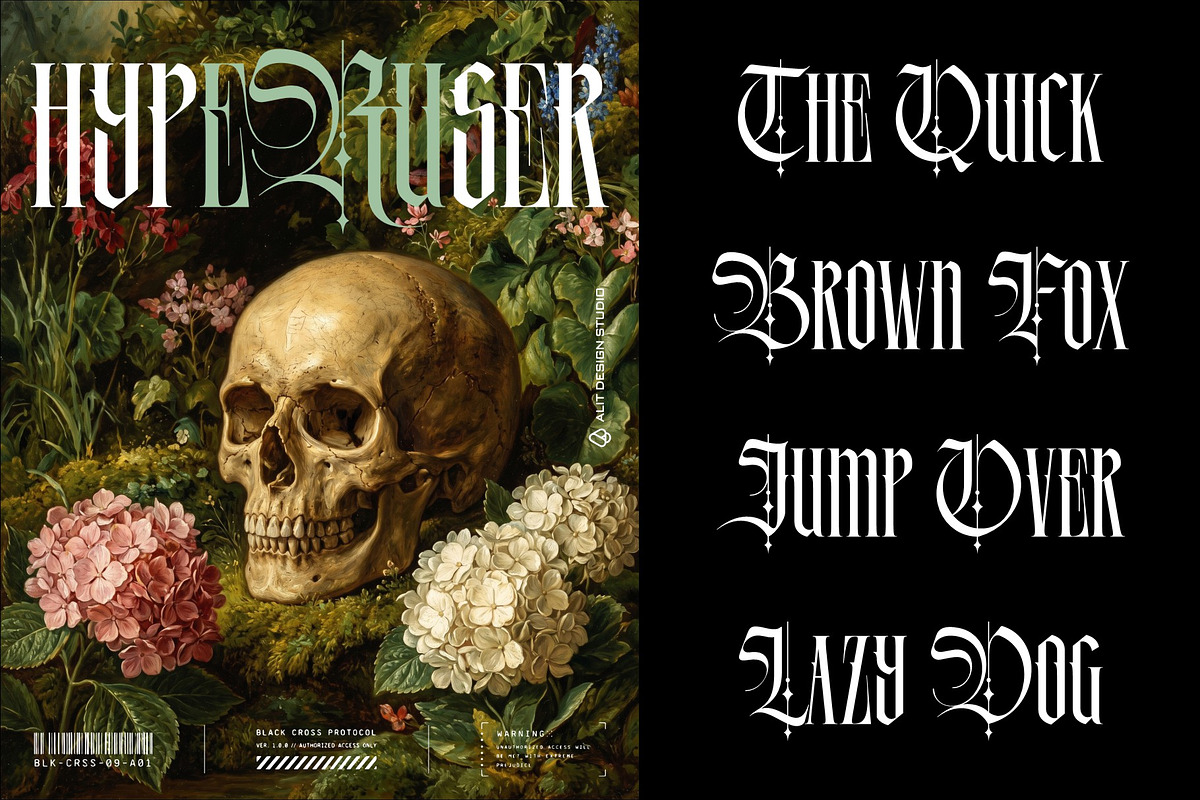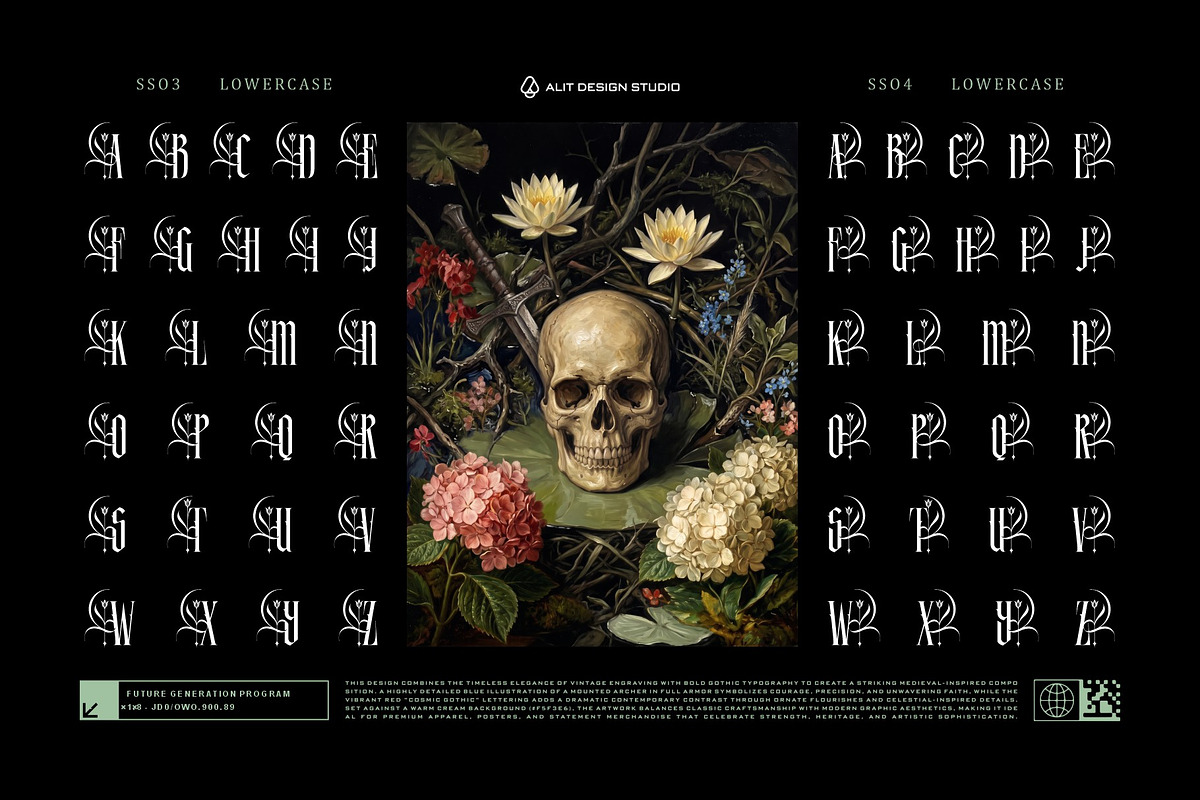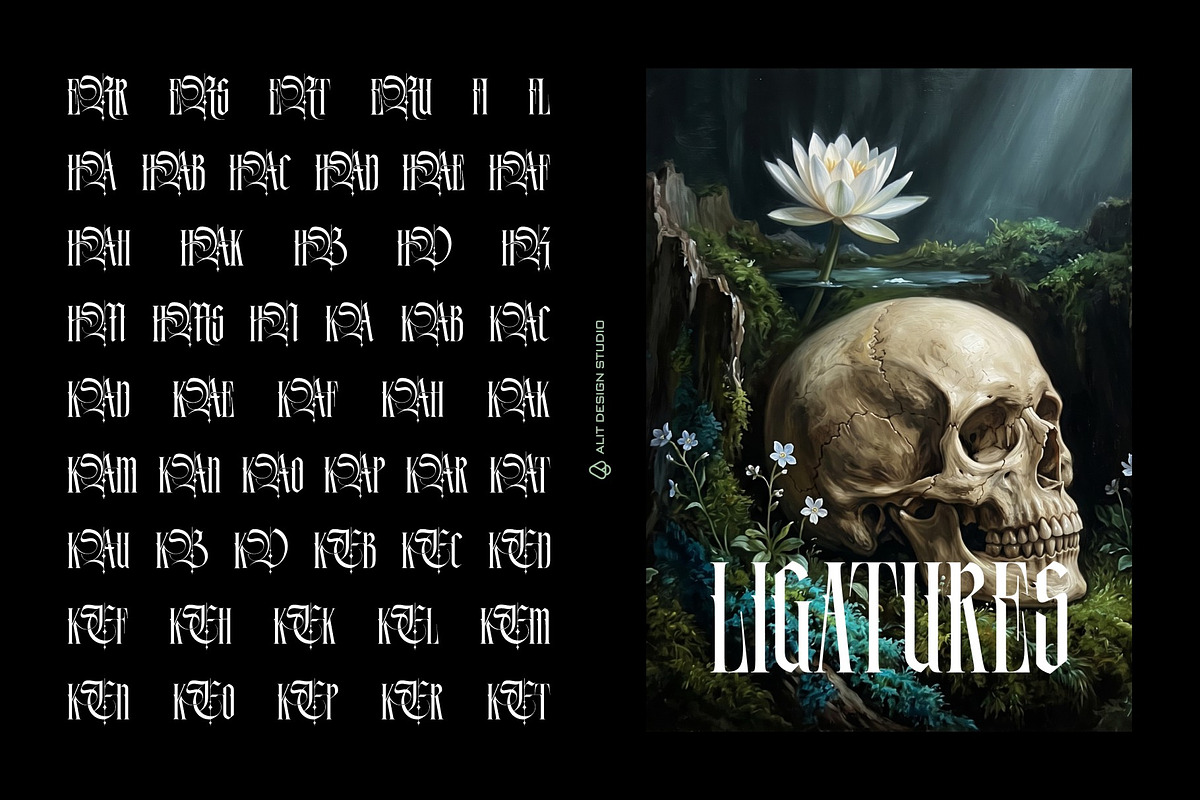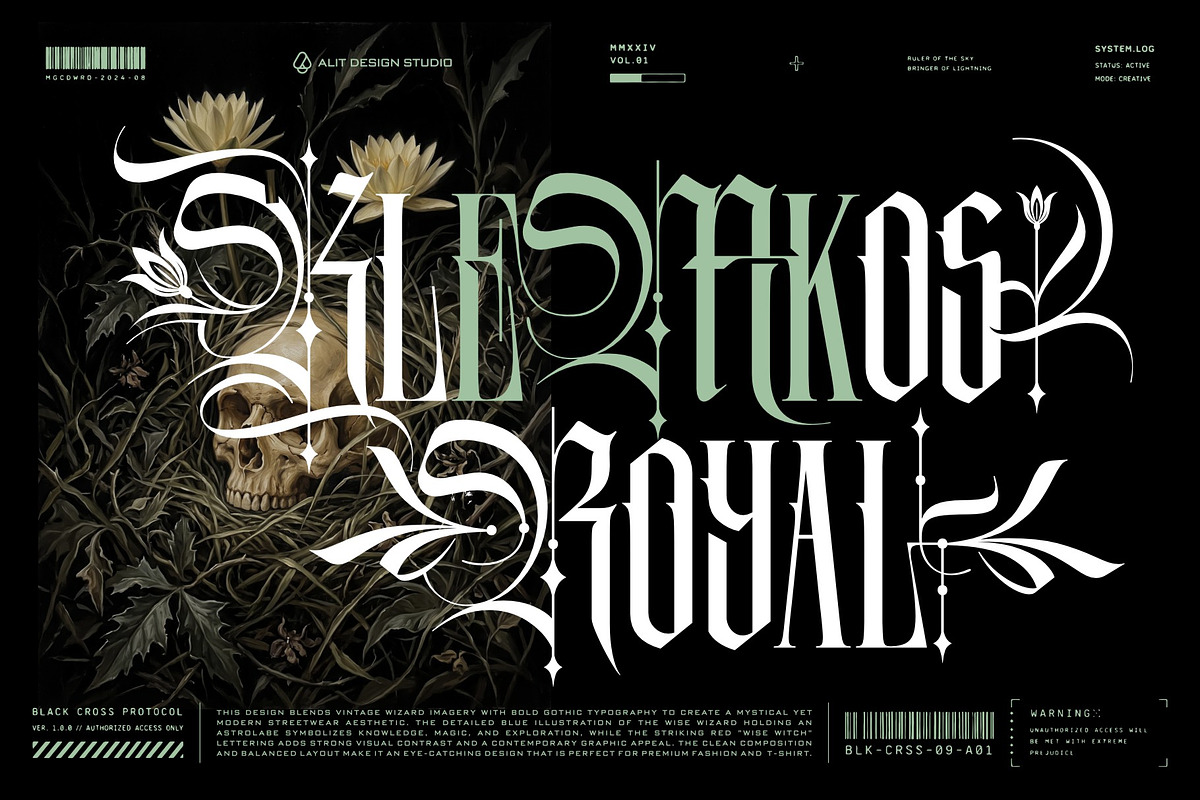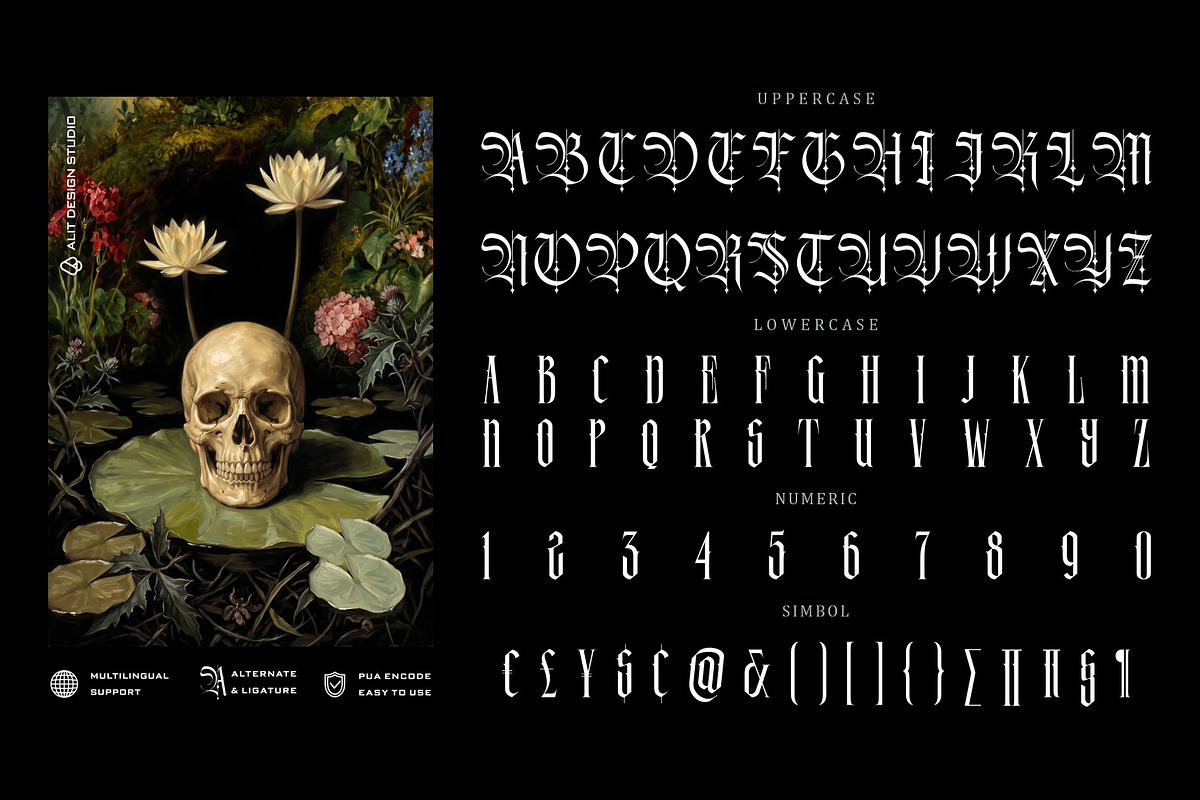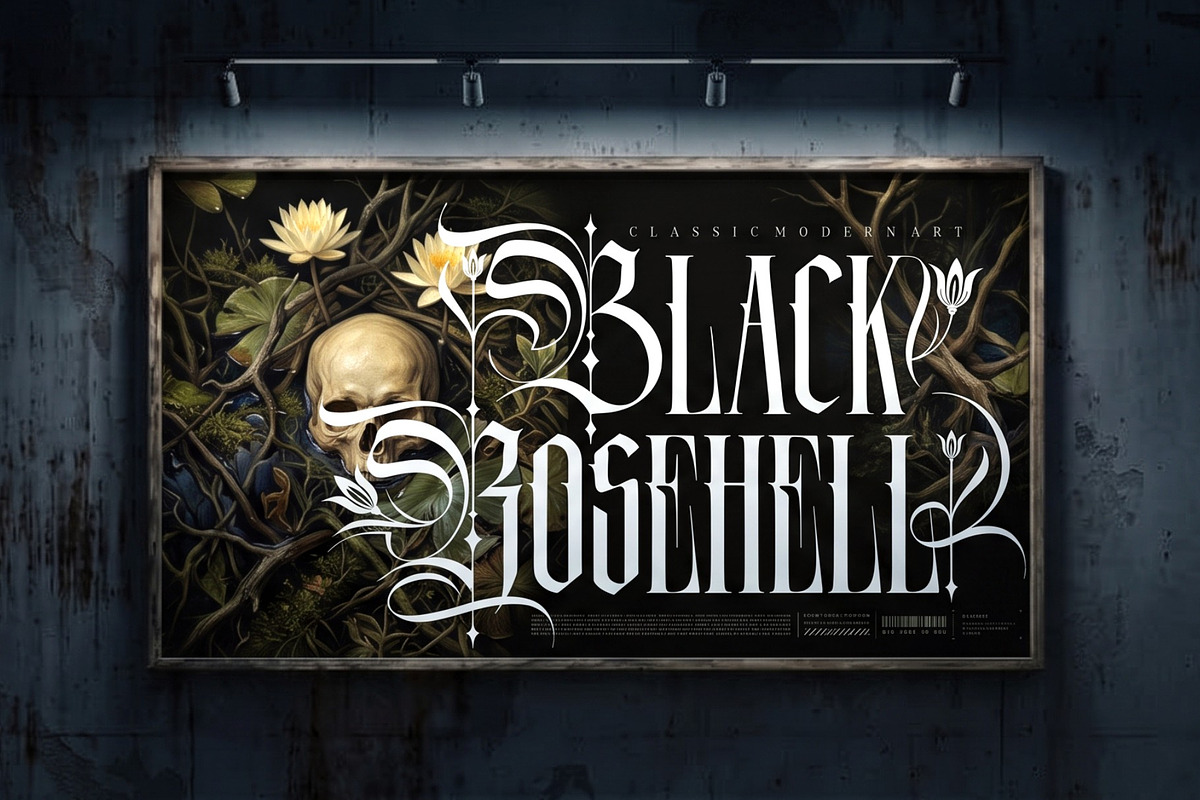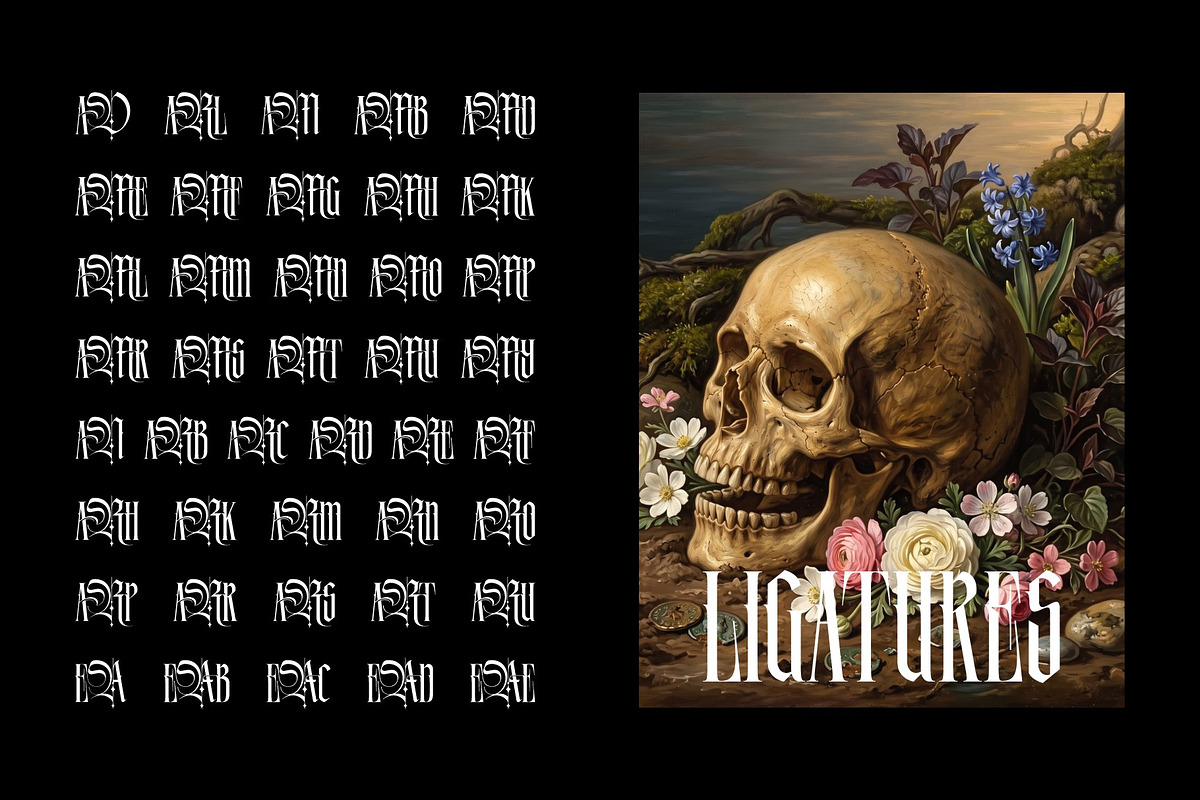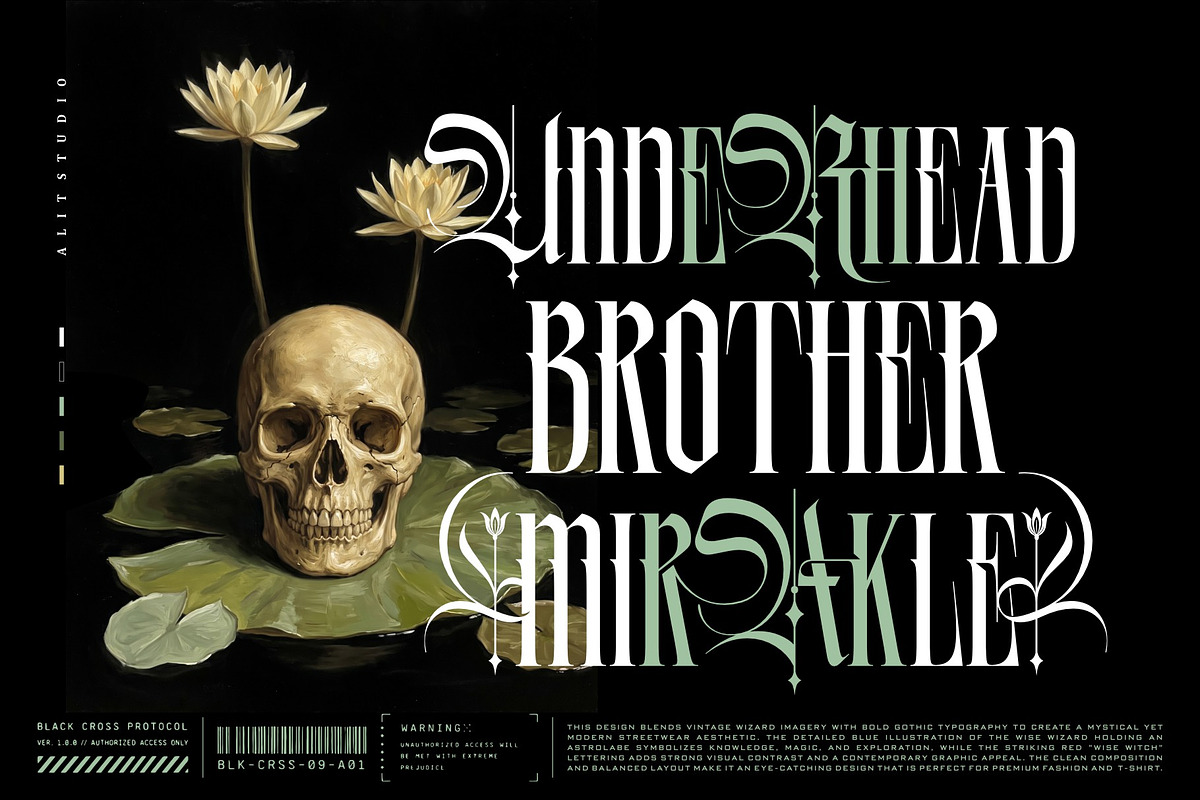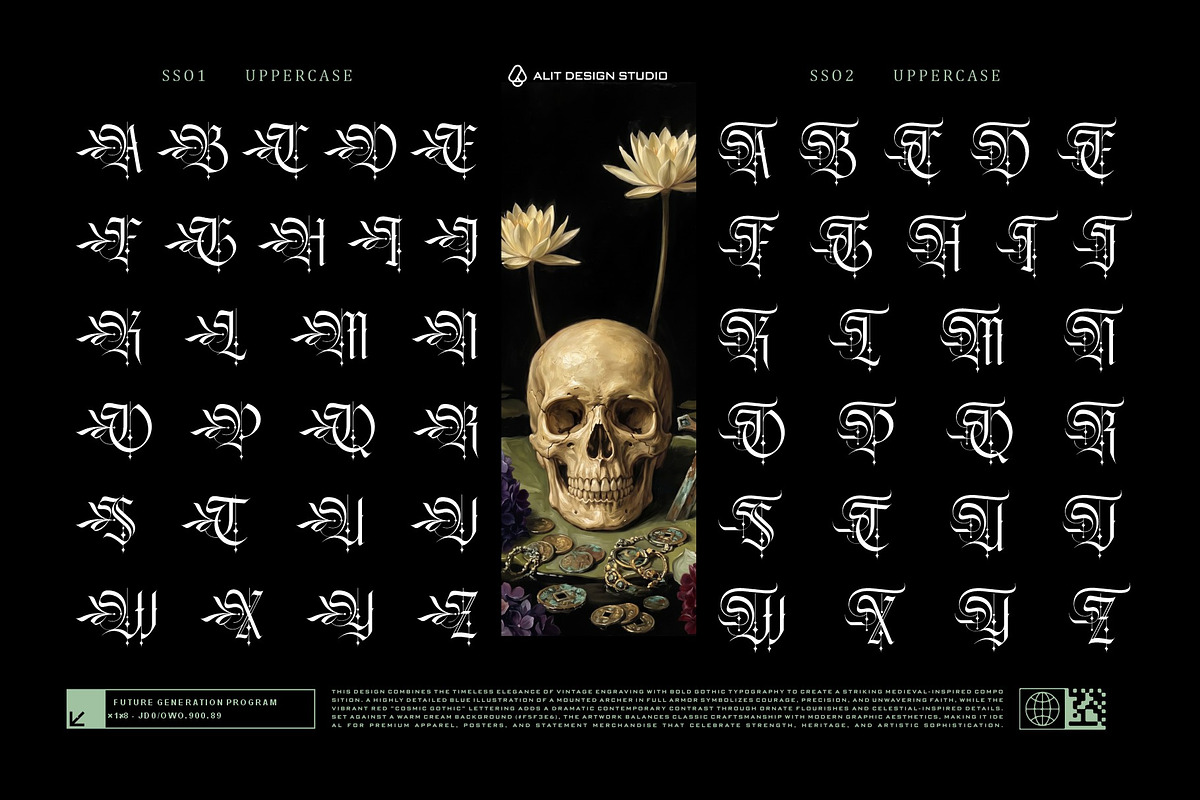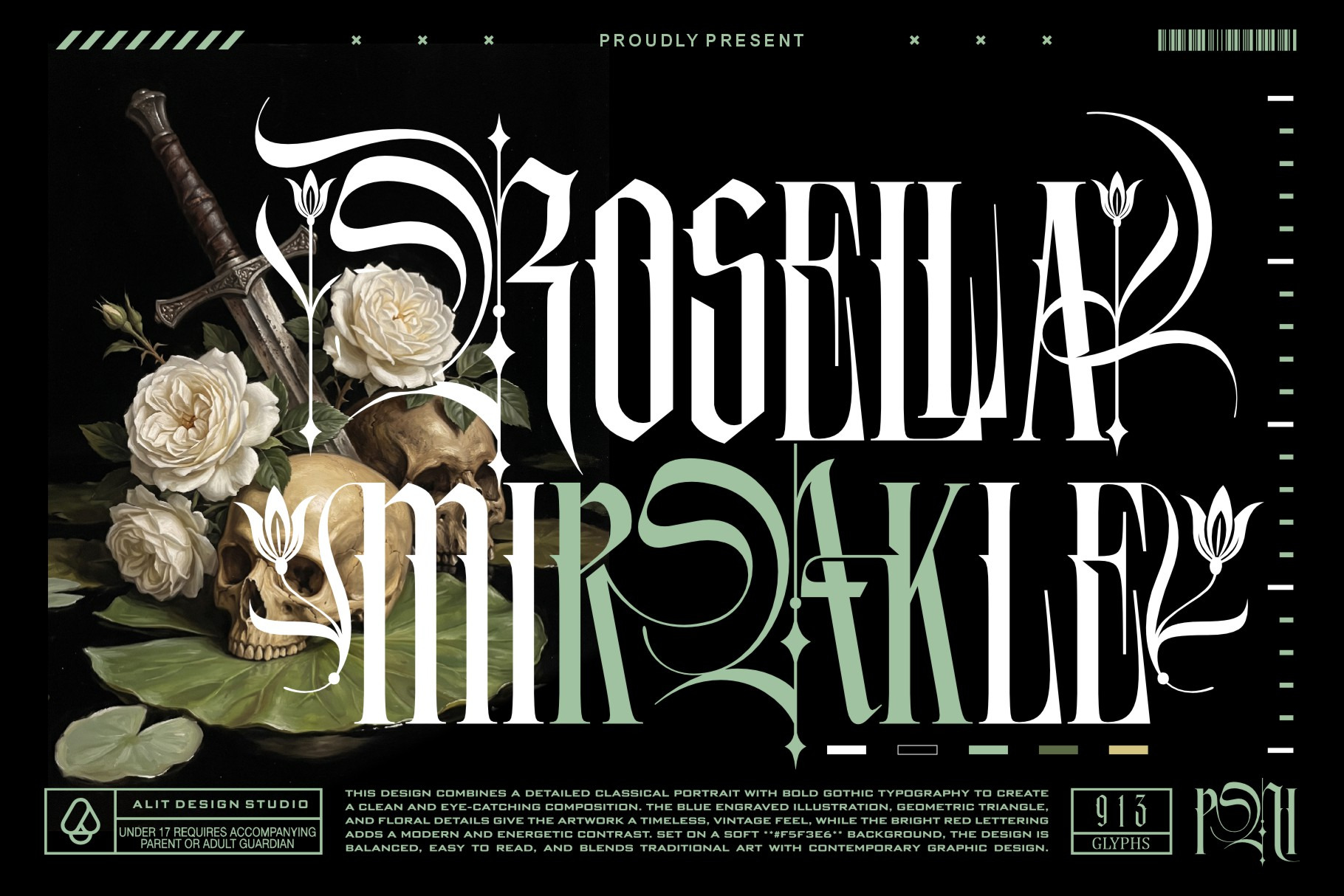
Rosella Mirakle Typeface
Rosella Mirakle Typeface — Gothic & Medieval Display Font
Introduce Rosella Mirakle, a striking and majestic display typeface that seamlessly blends vintage gothic architecture with a modern, dark aesthetic. Inspired by medieval calligraphy, classic engravings, and occult mysticism, Rosella Mirakle commands attention with its dramatic lines, ornate flourishes, and razor-sharp detailing.
This font is carefully crafted for designers seeking a powerful visual statement. Packed with extensive stylistic sets (SS01 through SS05), intricate ligatures, and PUA-encoded characters, Rosella Mirakle offers endless creative possibilities to elevate your branding, apparel lines, album art, and poster designs.
Stylistic Sets (SS01 - SS05): Alternative uppercase and lowercase glyphs featuring unique floral, sharp, and medieval ornamental variations.
Ligatures: A rich collection of custom character connections for a seamless, authentic custom-lettered look.